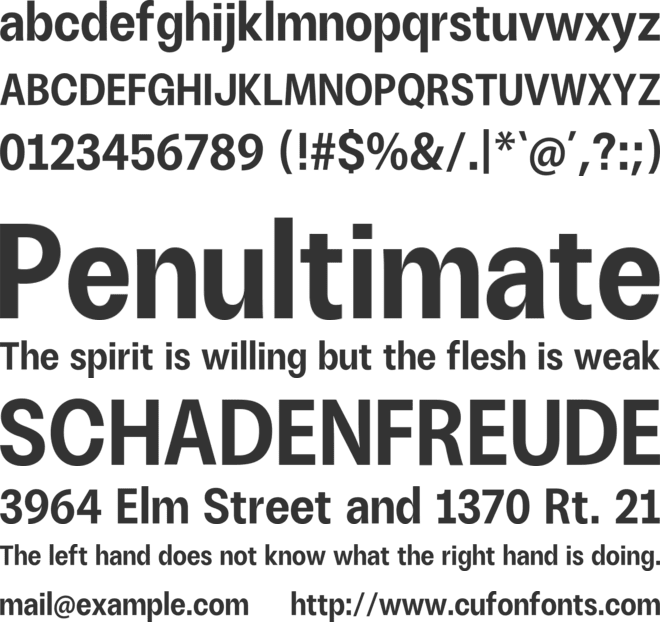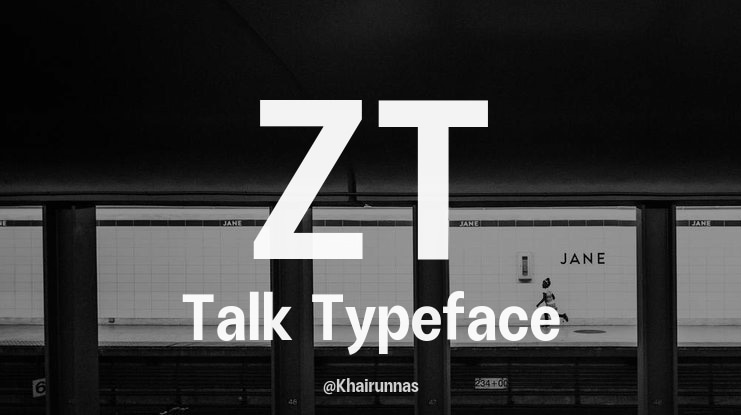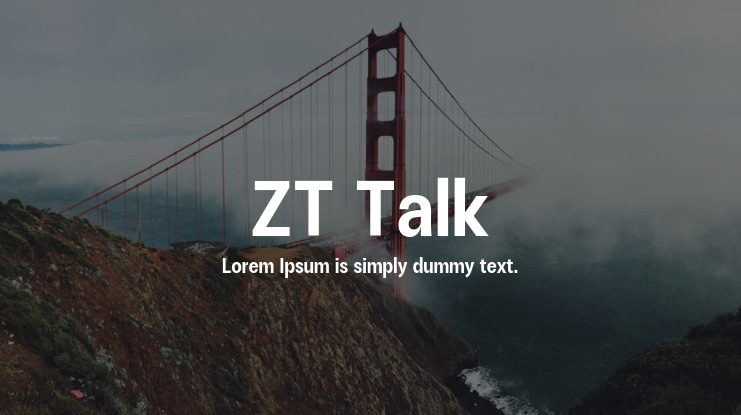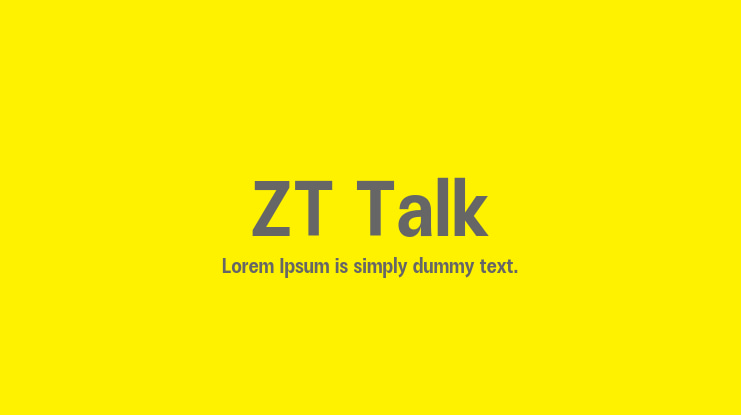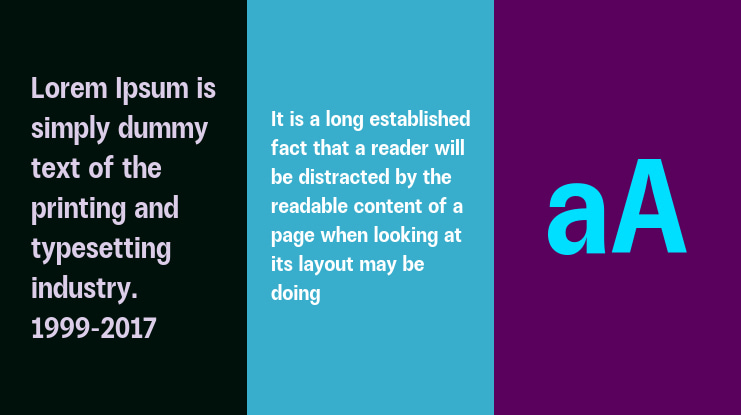
Every character conceals a remarkable tale behind it. ZT Talk isn't just a font; it embodies a quiet observer to a journey marked by resilience and bravery in crafting something unforgettable.
- 80 Styles: Offering a diverse array of 80 unique styles, ZT Talk provides unmatched versatility in design. - 5 Variant Varieties: Including Condensed, Semi Condensed, Normal, Semi Expanded, and Expanded. - 8 Weights & Italics: Ranging from Light to Black, the eight weights establish a clear and effective text hierarchy. - 8 free styles (Regular, Medium, Semi Bold, Bold / Italic) - Extensive Compatibility: Available in OTF, TTF, WOFF, WOFF2, EOT formats, ensuring compatibility across various design platforms. - Multi-Language Support: ZT Talk supports multiple languages and accents, enabling effortless global communication. - Consistent Cohesion: Despite its numerous styles, ZT Talk maintains visual unity within its font family. - Modern and Elegant Design: Infused with a contemporary flair and sharp angles, ZT Talk evokes an elegant aura suitable for diverse design projects. - Optimal Quality: Meticulously developed for top-tier quality, ZT Talk delivers the clarity and excellence expected of a premium font.